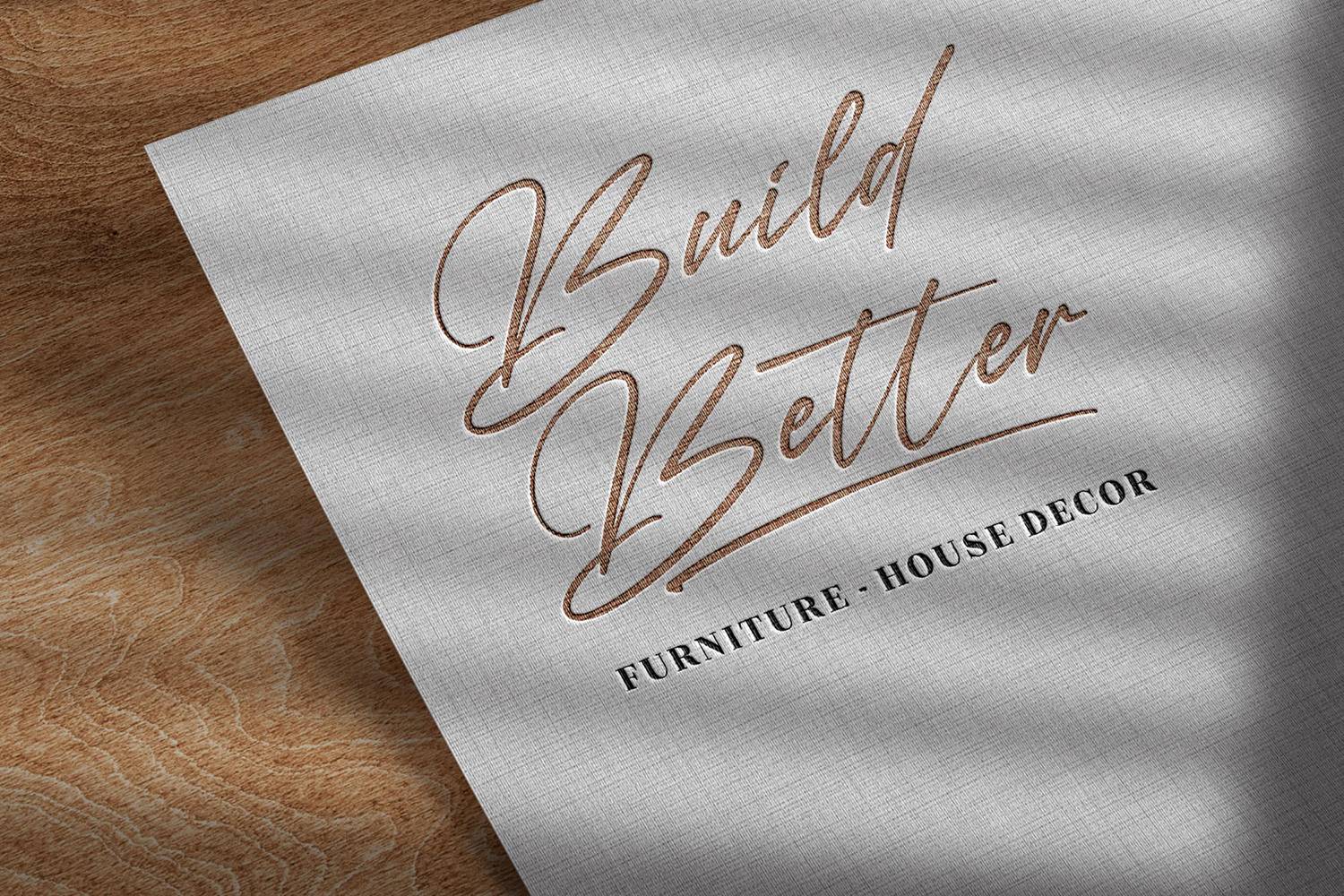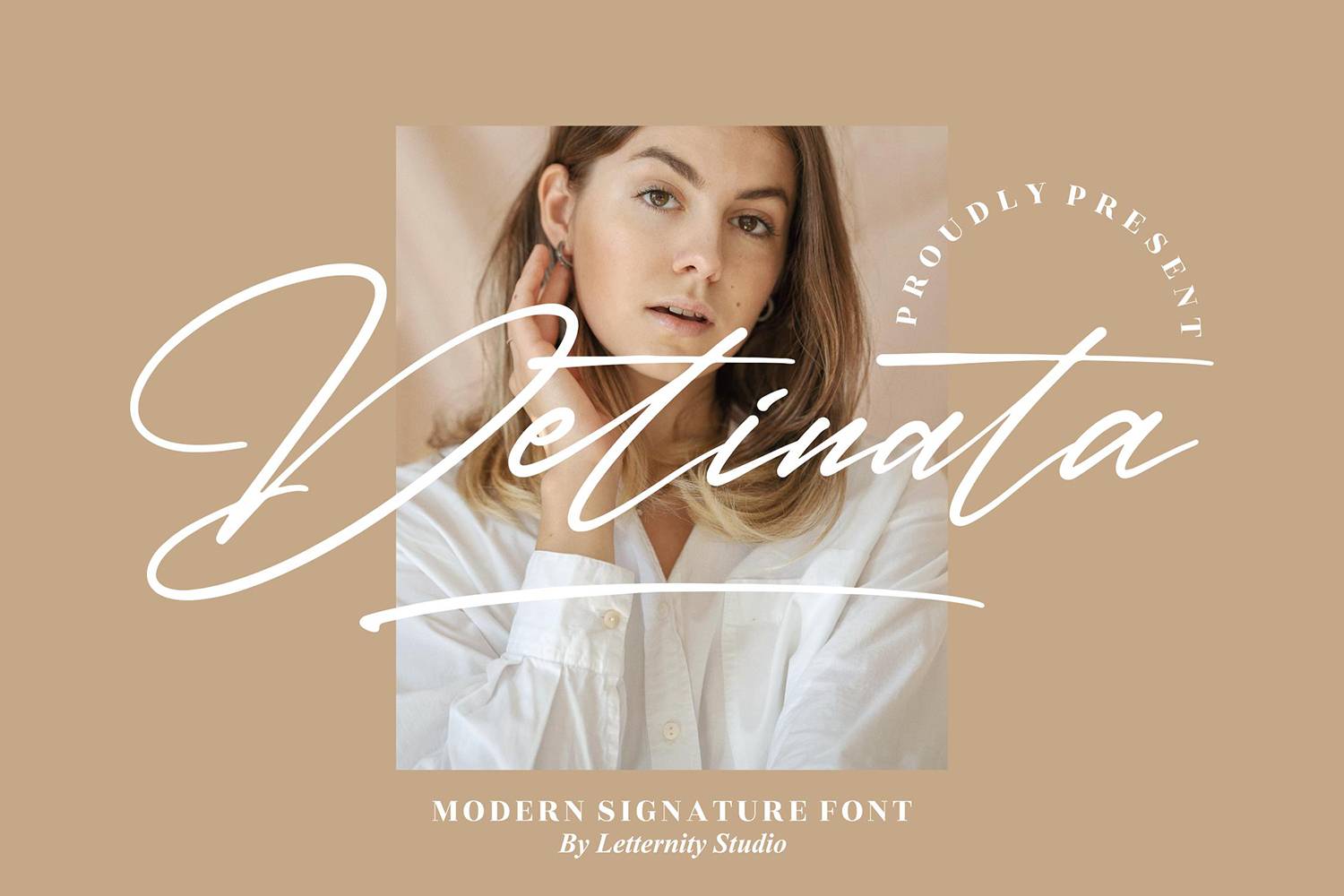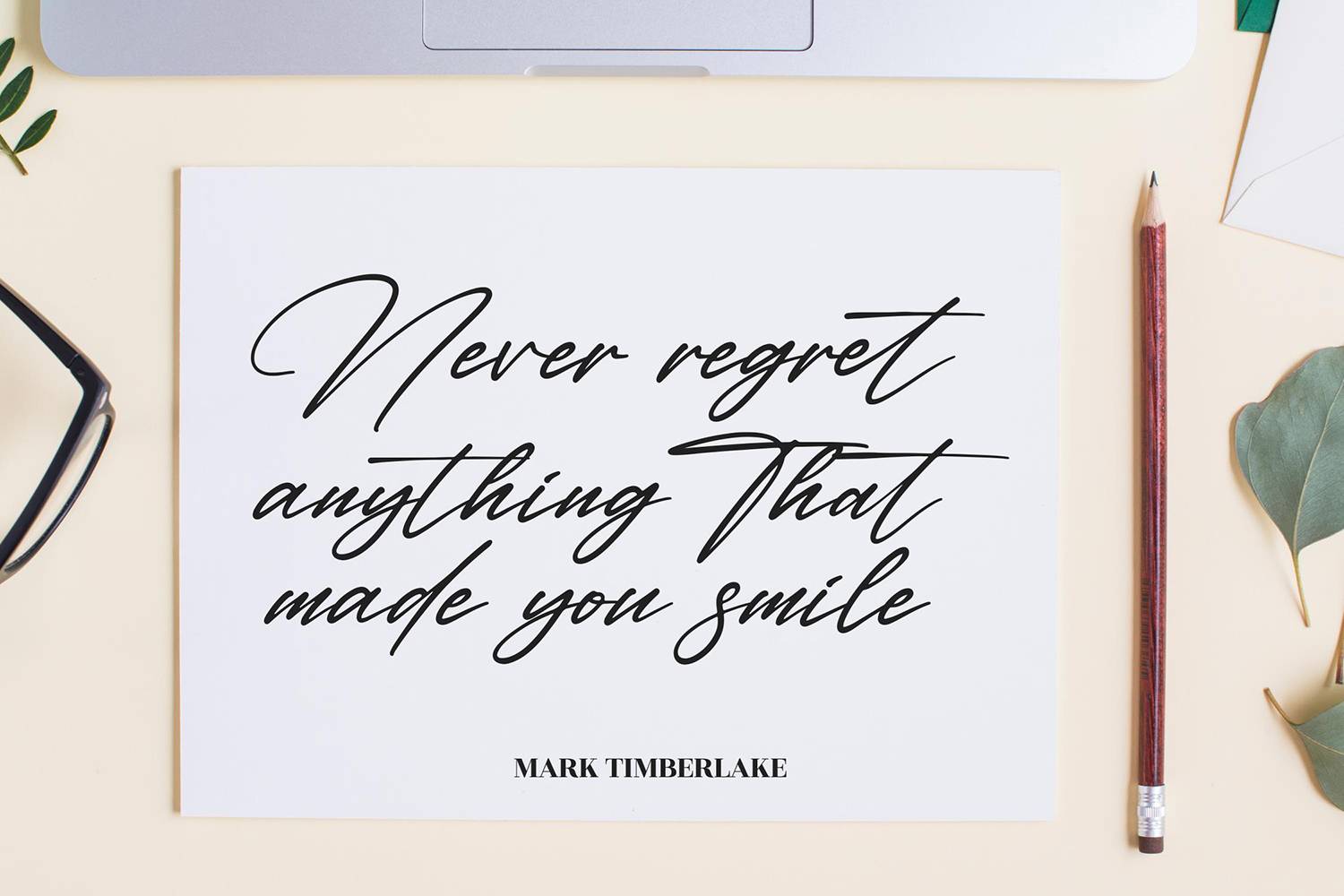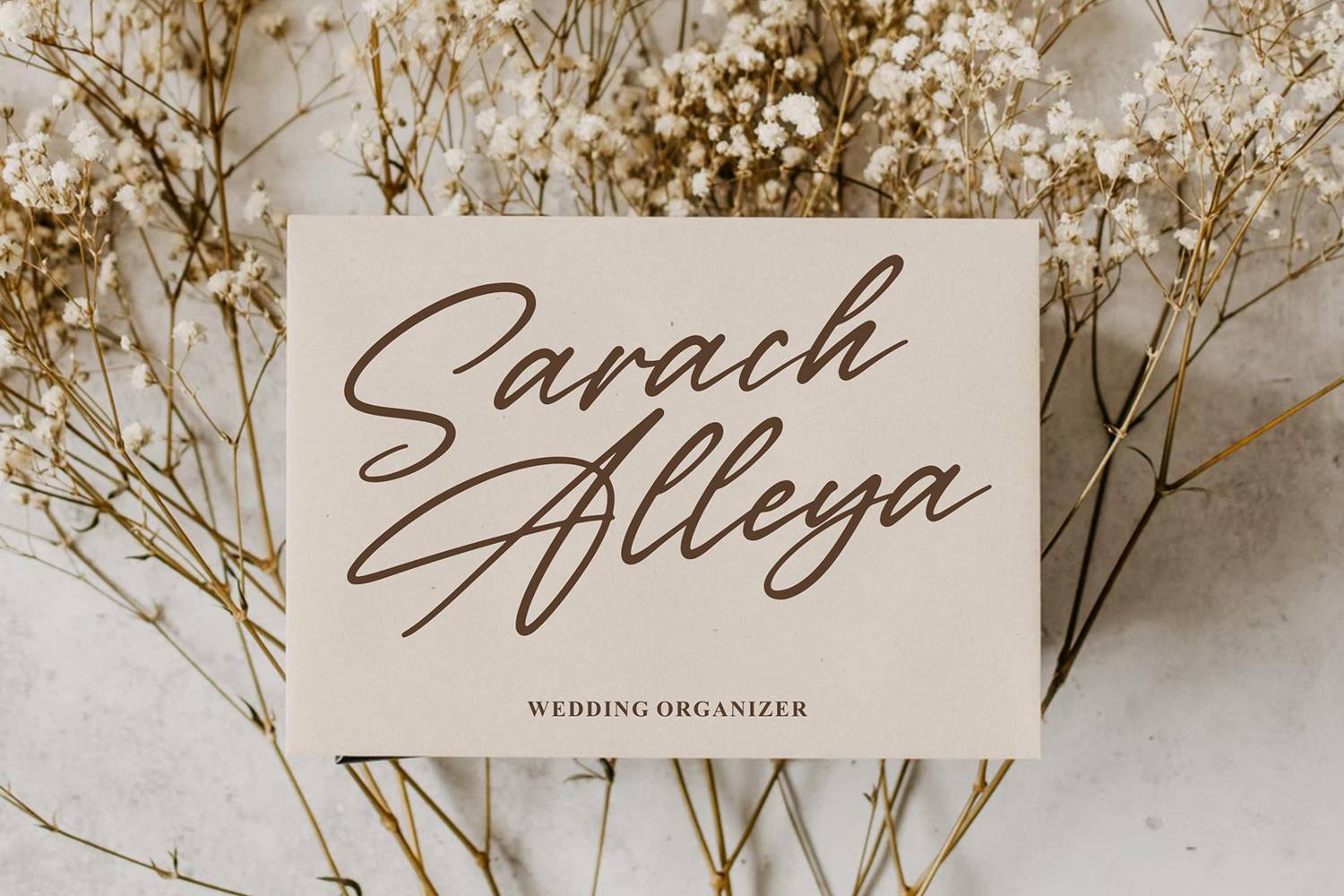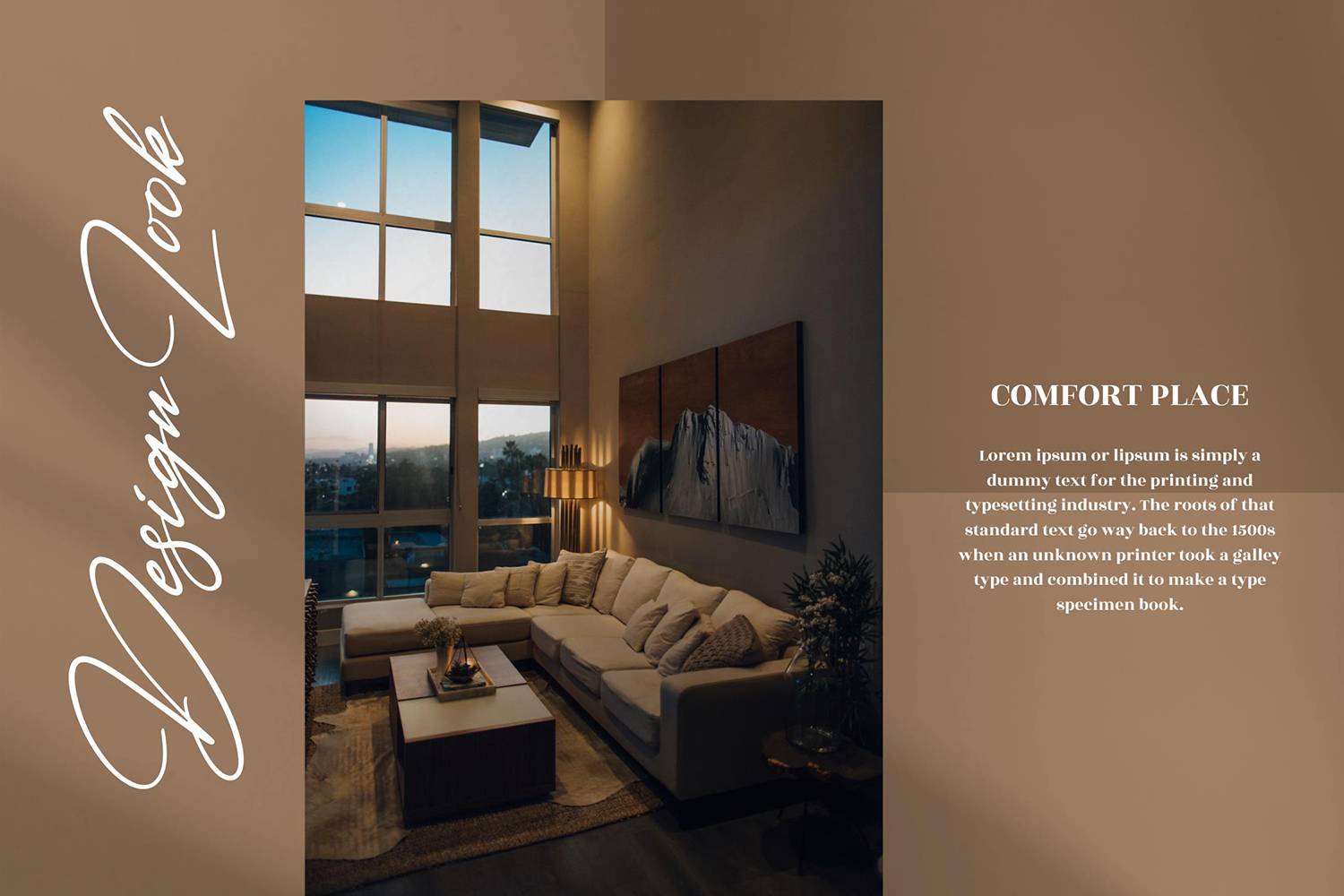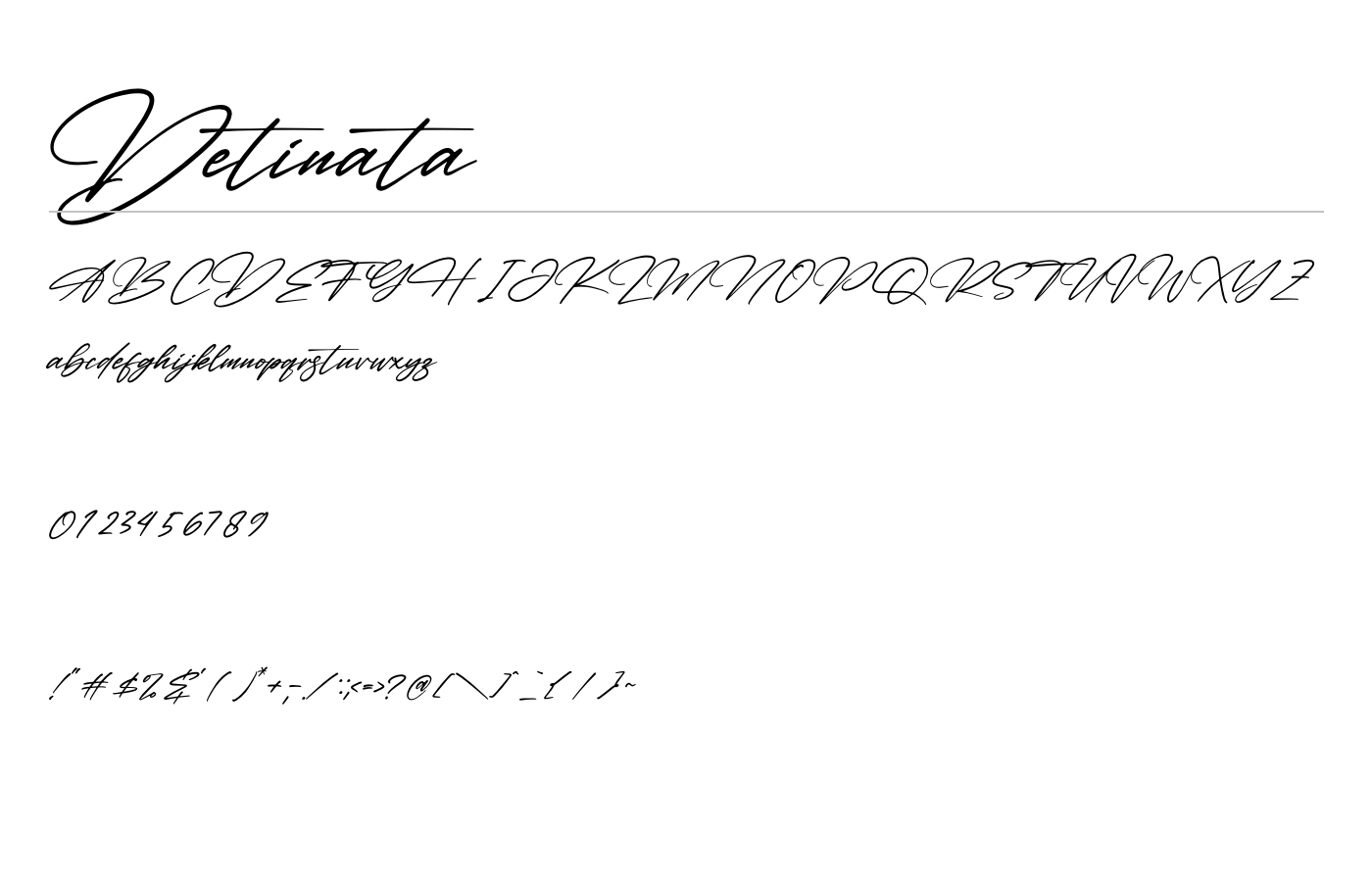
Detinata is a delicate and elegant script font characterized by its flowing, handwritten style with thin strokes and graceful curves. Its slender, slightly condensed letterforms convey a sophisticated, personal touch, making it perfect for invitations, branding, and stylish editorial uses where a refined, artistic feel is desired. This font shines in applications that seek to evoke charm and elegance with a modern, natural flair.
Detinata Font
About Detinata Font